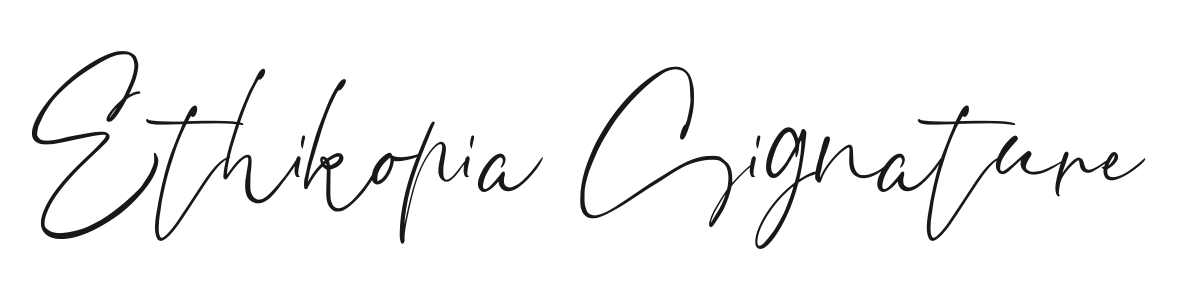
Ethikopia Signature
Ethikopia Signature is a casual connected script with the loose, flowing quality of a handwritten signature. Sweeping ascenders and long baseline strokes create an effortless rhythm across the line. It works well at large sizes for logos, wedding stationery, and lifestyle branding where a natural handwritten touch is needed.